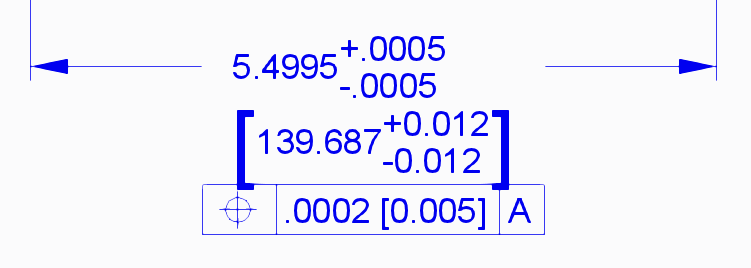
Dual Dimension Brackets & TrueType Fonts
A while back I converted everything over to use PTC's new Arial WGL TrueType font.  Some of my users are very unhappy with the change.  They don't like how the TrueType fonts make everything look bold compared to the old line fonts, especially the brackets in dual dimensions.
Does anyone have any suggestions on how to make the (automatically created) dual dimension brackets not look so bold while still using TrueType fonts?  There are some distinct benefits that come with TrueType fonts and I'd prefer to not lose those just for these brackets.  Thanks.
So I figured out why the brackets look bold.  The font for the brackets is 2.5 times larger and therefore 2.5 times thicker than the characters they're surrounding.
It would be nice if there were actual characters for double height brackets instead of increasing the text height of the single height characters to make them the height of two rows.
as you know, I was also struggling with bold looking fonts (however in a different way).
I was curious what benefits you see, coming with the TrueType fonts.
Sorry for the late reply.  Two benefits - file size and symbols.
1. The file size of a PDF with lots of text is much smaller when TrueType fonts are used vs. when line fonts are used or the fonts are stroked.  This file size impacts both publishing speed and storage space required (in Windchill.)  The file size difference can also be significant enough to allow one file to be email-able and the other not.
2. The new ArialWGL TrueType font includes a bunch of new symbols that are not available when using the old line fonts.
This actually gets worse.  The brackets overlap the GD&T feature control frames too.
Tech support claims this is 'working to spec.' and to create a product idea.  I'm pushing back...
That doesn't look like it is working to spec, unless those are Coke bottle "specs".
Remember, 'working to spec.' doesn't mean it works in a way most people would expect it to, rather there is nothing in the spec. that says it shouldn't work this way.  Huge difference!
Since there is nothing in the spec. that says the brackets can't be extra bold and overlap other stuff, it's effectively 'working to spec.'!  Ugh.
Working to whose spec?
If PTC claims it is 'working to spec' ask them for a copy of the spec it is working to!
A PTC internal document, while a spec to PTC, does not make it a universally accepted, standard committee approved by industry spec.